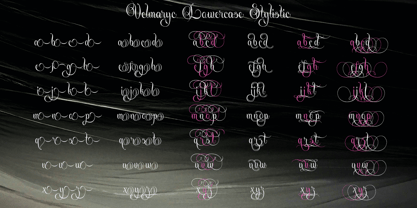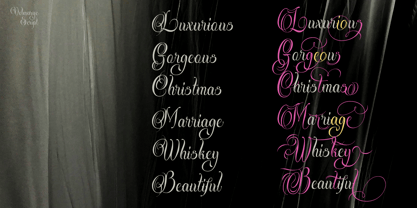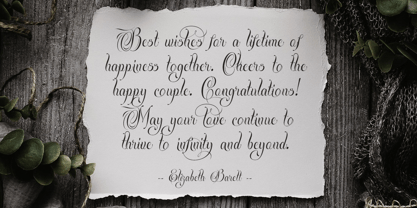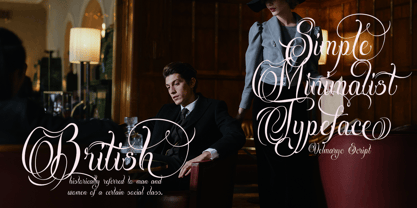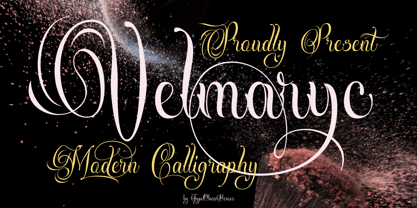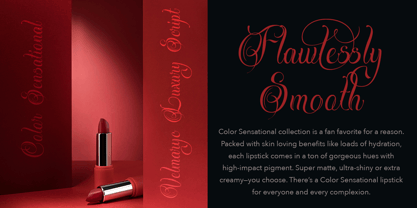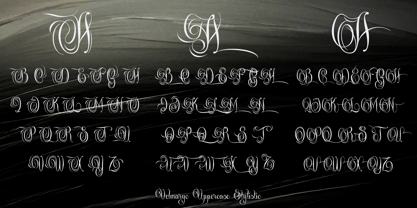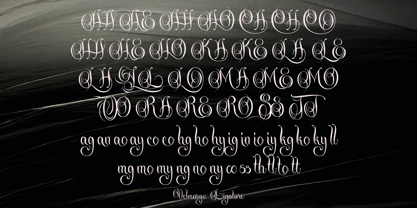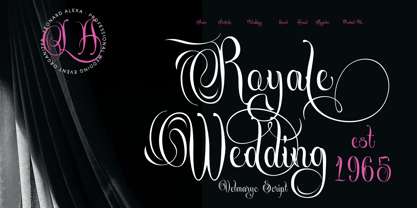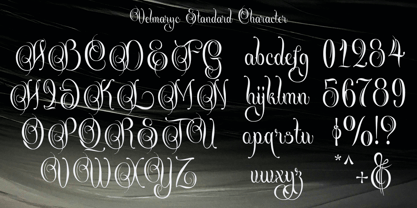
Velmaryc
The Velmaryc Font Family was designed by Suandana ipandemade and published by TypeClassHeroes. Velmaryc contains 2 styles and family package options. More about this family
Introducing Velmarcy modern calligraphy, this font features a combination of thin design, smooth curves, and well-maintained joints, making it the perfect choice for an elegant look. Each character is designed with a modern touch that is suitable for luxurious and feminine designs. Its clean and feminine aesthetic is perfect for logos, wedding invitations, or exclusive branding.